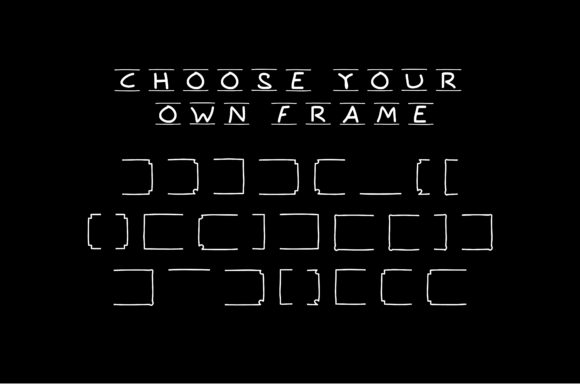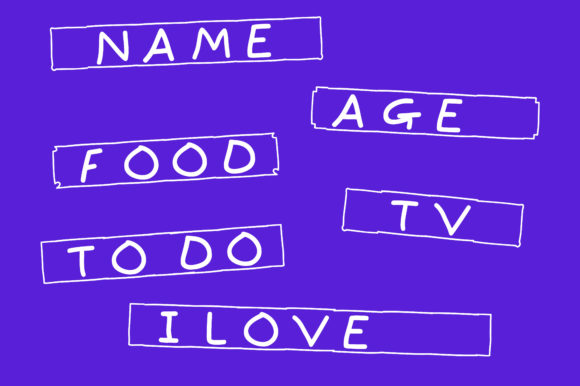
Introduction to Label Kit Font
As a designer, there’s nothing quite like the thrill of bringing a creative project to life. You’re brainstorming ideas, experimenting with colors, and carefully crafting every detail – until it’s time to add the finishing touches. That’s where a good label font comes in – and we’re excited to introduce you to the Label Kit Font, a game-changing design resource that’s about to make your life easier.
Imagine being able to quickly and easily create high-quality labels that perfectly match your brand’s aesthetic, all without sacrificing any of the creative control you need to make your project truly stand out. With the Label Kit Font, you can do just that – and with five different frame styles to choose from, you’ll be able to create the perfect look for your next design project.
Key Features of Label Kit Font
- High-Quality Design Resource: Label Kit Font is a professional design resource ideal for creative projects, offering a unique and modern aesthetic.
- Transparent Background: Label Kit Font features a transparent background, allowing for easy customization and integration into various design elements.
- High-Resolution Graphics: The font includes high-resolution graphics, perfect for printing and digital applications at 300 DPI resolution.
- Extensive Character Set: Label Kit Font includes an extensive character set, covering a wide range of languages and alphabets, making it a versatile design resource.
- Easy to Use: The font is designed to be easy to use, with clear and intuitive typography, making it perfect for designers of all skill levels.
Honest Review: Label Kit Font
I recently had the chance to work with Label Kit Font, and I must say it’s been a great addition to my design resources. This free download has really stepped up my creative project game!
- ✨ High quality design: The font is crisp and clean, making it perfect for any project that requires a professional touch.
- ✨ Easy to use: The font is incredibly versatile and can be used for a wide range of applications, from branding to signage.
- ✨ Transparent background: This feature has been a game-changer for me, as it allows me to easily overlay the font on top of images or other design elements.
- ⚠️ Limited customization options: While the font is high quality, there are limited options for customization, which can be a drawback for some designers.
- ⚠️ Not suitable for all projects: Due to its clean and simple design, Label Kit Font may not be the best choice for projects that require a more complex or bold font.
Overall, I’m really impressed with Label Kit Font and would definitely recommend it to other designers. Its high quality design and easy-to-use interface make it a valuable addition to any design resource library.
Tips for Getting the Most Out of Label Kit Font
To get the most out of Label Kit Font, use it on a transparent background to give your design a clean and modern look. You can also customize the font size, color, and style to fit your creative project.